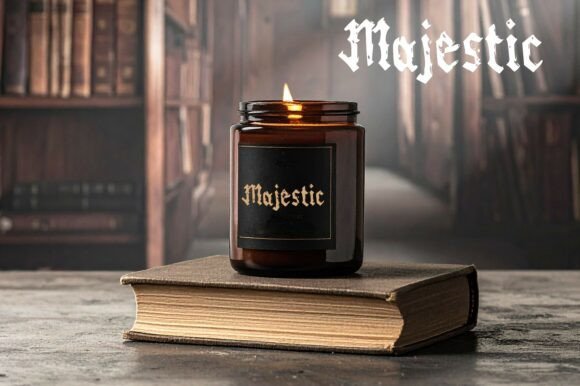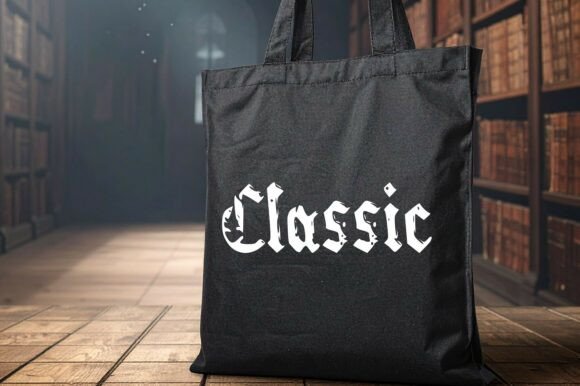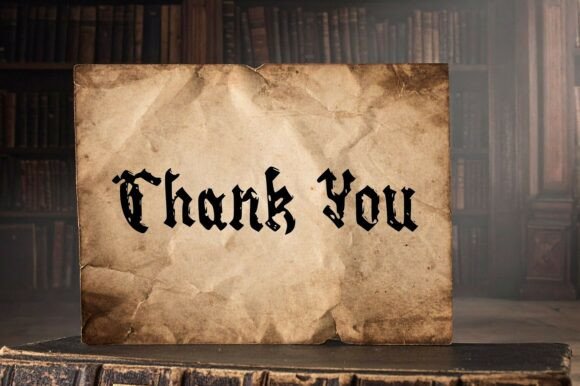
Experience the Timeless Elegance of Camat Eselon III Font
Are you looking for a display font that exudes sophistication and classic elegance? Look no further than ‘Camat Eselon III’, a beautiful blend of timeless charm and refined appeal. This stunning font is perfect for designers and crafters who want to add a touch of regal allure to their projects.
A Font Inspired by Ancient Manuscripts
‘Camat Eselon III’ draws its unique brilliance from the noble handwork reflected in ancient manuscripts. Recreated with breathtaking precision, this font captures the essence of bygone times and kingly grandeur. Each curve and nuance of ‘Camat Eselon III’ reflects the complexity of calligraphy, radiating a potent allure akin to historic parchments and aristocratic insignia.
Perfect for Conveying Timeless Aesthetics
The imposing dignity of ‘Camat Eselon III’ makes it a perfect choice for relaying messages of utmost reverence and timeless aesthetics. Whether you’re working on a luxury brand project, a high-end product design, or a sophisticated wedding invitation, this font is sure to make a lasting impression.
Comprehensive Typography Features
‘Camat Eselon III’ offers a complete range of standard punctuation marks, guaranteeing a powerful and uninterrupted application for all your typography needs. This font is designed to provide a seamless experience for designers, allowing you to focus on creating stunning visual content.
Why Choose Camat Eselon III Font?
- Timeless Elegance: ‘Camat Eselon III’ offers a classic charm that never goes out of style.
- Regal Allure: This font exudes sophistication and grandeur, perfect for luxury brands and high-end designs.
- Comprehensive Typography Features: ‘Camat Eselon III’ includes a complete range of standard punctuation marks.
Tips for Using Camat Eselon III Font
To get the most out of ‘Camat Eselon III’, here are some tips for using this stunning font:
- Use for Headings and Titles: ‘Camat Eselon III’ is perfect for headings and titles, where you want to make a bold statement.
- Pair with Simple Fonts: Pair ‘Camat Eselon III’ with simple fonts for body text to create a striking contrast.
- Experiment with Colors: Try ‘Camat Eselon III’ with different colors to find the perfect combination for your design.
‘Camat Eselon III’ is a truly exceptional display font that offers a unique blend of timeless elegance and regal allure. With its comprehensive typography features, total compatibility with designer software, and stunning visuals, this font is a must-have for designers and crafters. Whether you’re working on a luxury brand project or a sophisticated wedding invitation, ‘Camat Eselon III’ is the perfect choice for adding a touch of sophistication and classic charm.